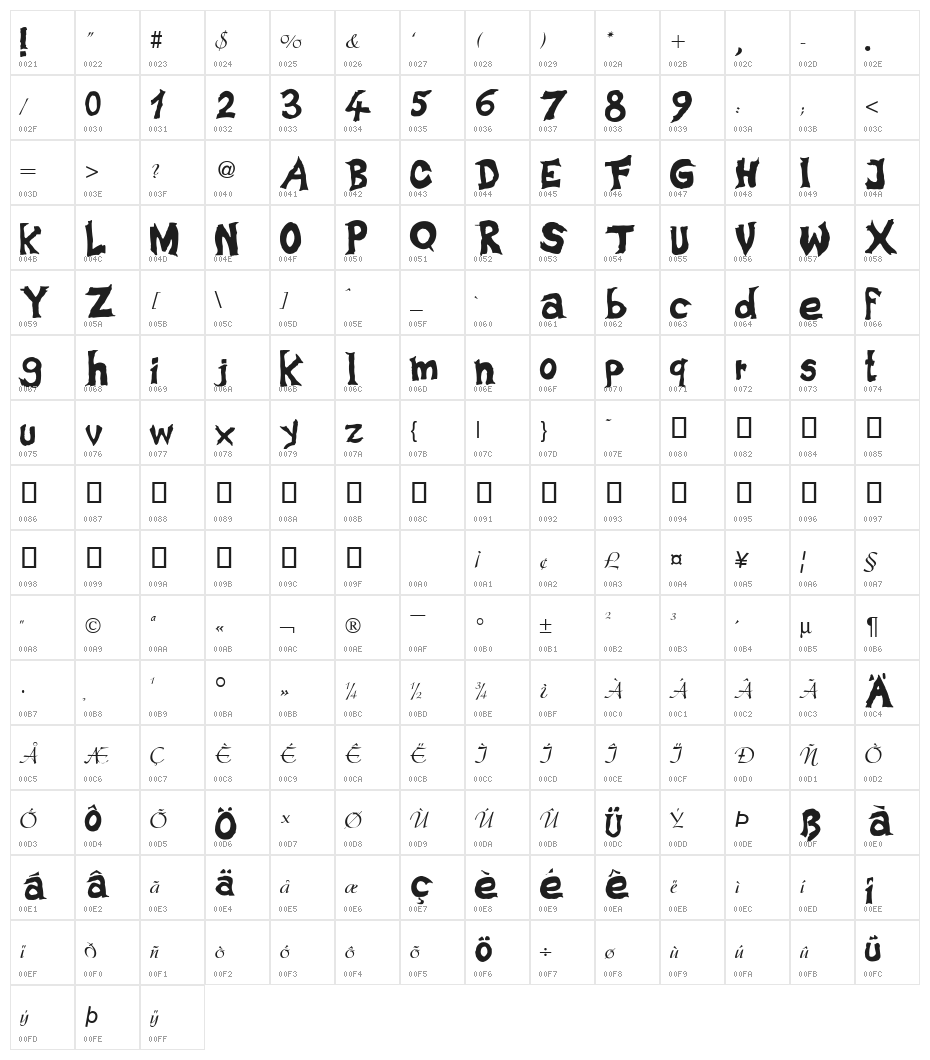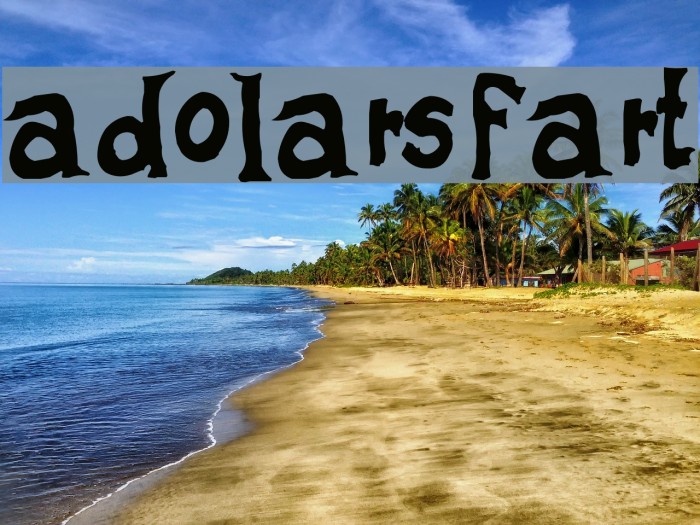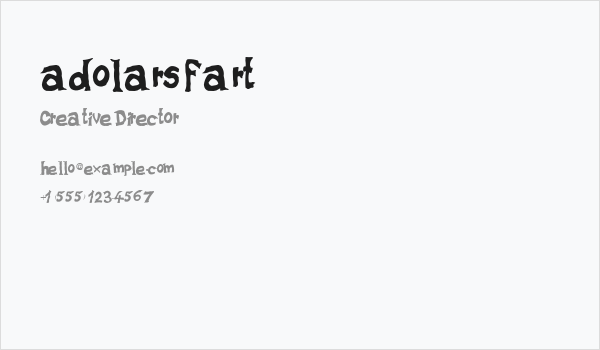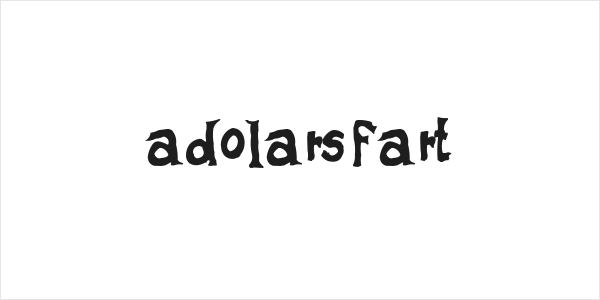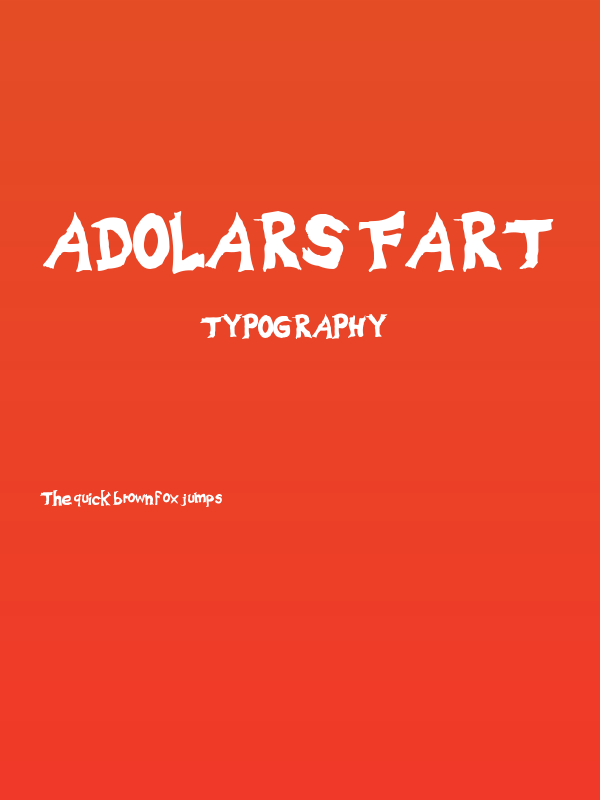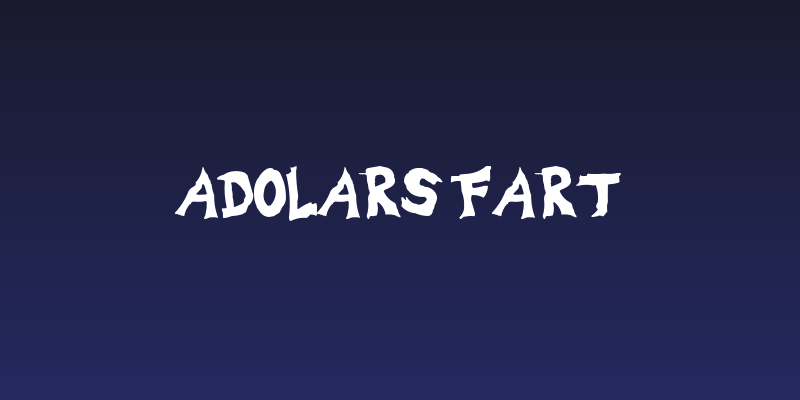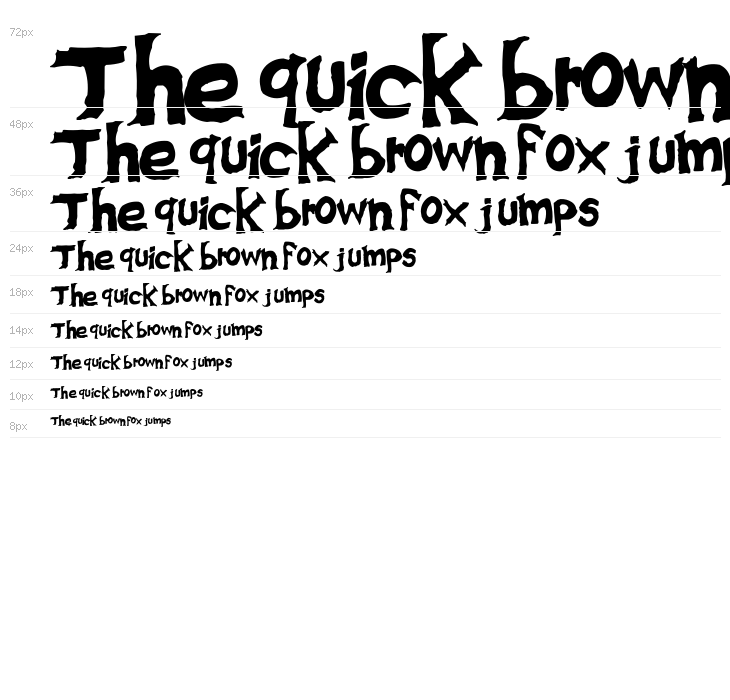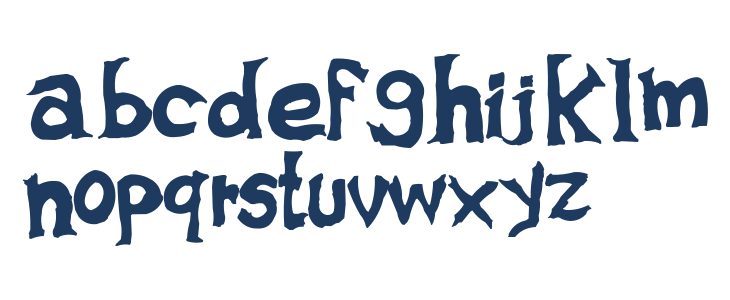
adolars fart Font
adolars fart Description
This font features a bold and dynamic style with a hand-drawn appearance. The characters are irregular and slightly distorted, giving them a playful and artistic feel. The uppercase and lowercase letters maintain a consistent style, with exaggerated serifs and uneven lines that add to the font's unique character. The numbers and special characters follow the same design principles, ensuring a cohesive look across all glyphs. This font's distinctiveness makes it stand out, ideal for projects that require a touch of creativity and individuality.
Overall StyleArtistic, Playful
Proposed ProjectsIdeal for creative projects such as posters, album covers, and artistic branding.